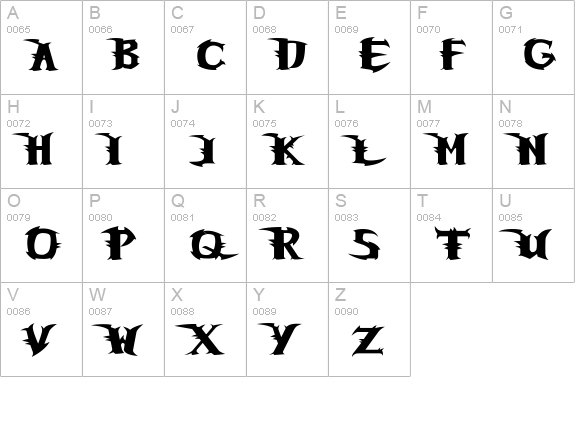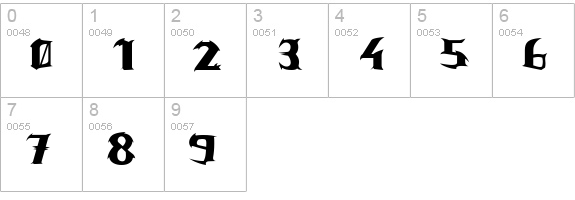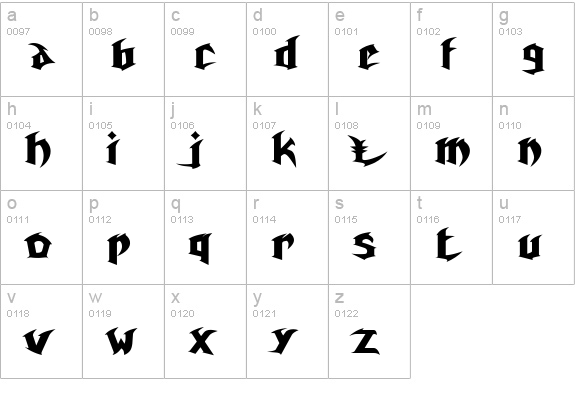
Unreal Tournament Font Details
The Unreal Tournament font is a captivating typeface that perfectly captures the spirit of intense competition and thrilling battles. With its sharp edges and bold design, this font is sure to make a lasting impression on any design project. What makes the Unreal Tournament font even more incredible is that it is free! Yes, you read that right. This remarkable font is freely available to download at FontsMarket.com. Now you can bring the excitement and energy of the Unreal Tournament game into your designs without any cost. Whether you're creating a poster for a gaming event, designing a logo for an esports team, or simply looking to add a touch of adrenaline to your project, the Unreal Tournament font is the perfect choice. Its versatility allows it to be used in various design contexts, making it a valuable asset for any designer. The Unreal Tournament font exudes power and intensity, with its bold letterforms and unique details. It is a font that demands attention and leaves a lasting impression. The sharp edges and strong lines give it a modern and edgy feel, making it ideal for contemporary designs. With the Unreal Tournament font, you can unleash your creativity and take your designs to the next level. The best part? It's completely free! Head over to FontsMarket.com and download this incredible font today. Don't miss out on the opportunity to add a touch of excitement and adrenaline to your designs with the Unreal Tournament font.